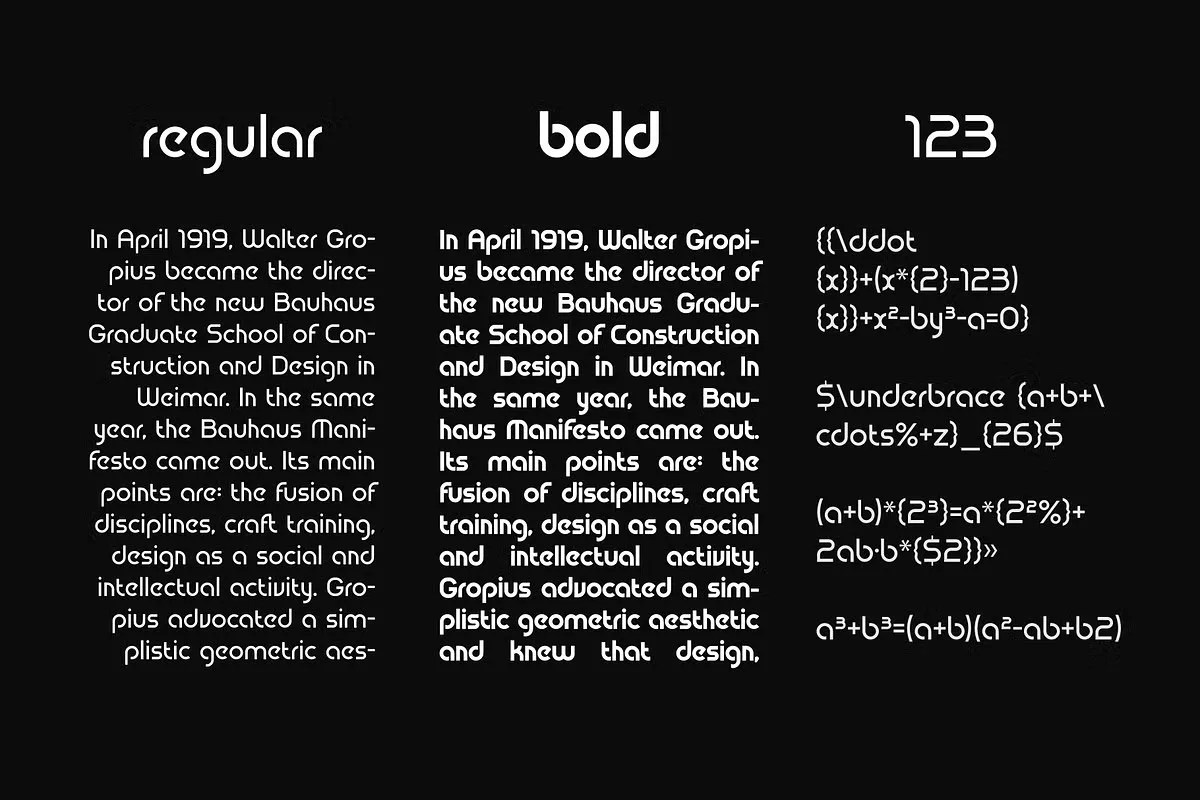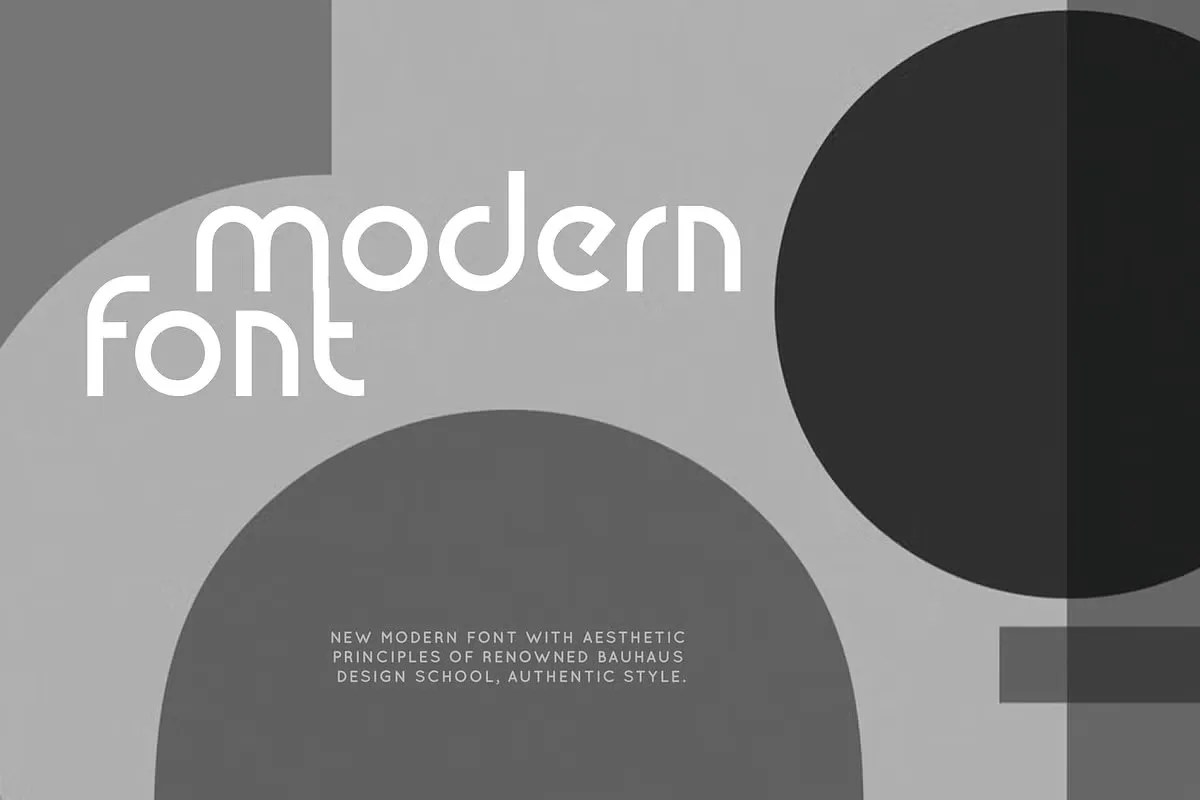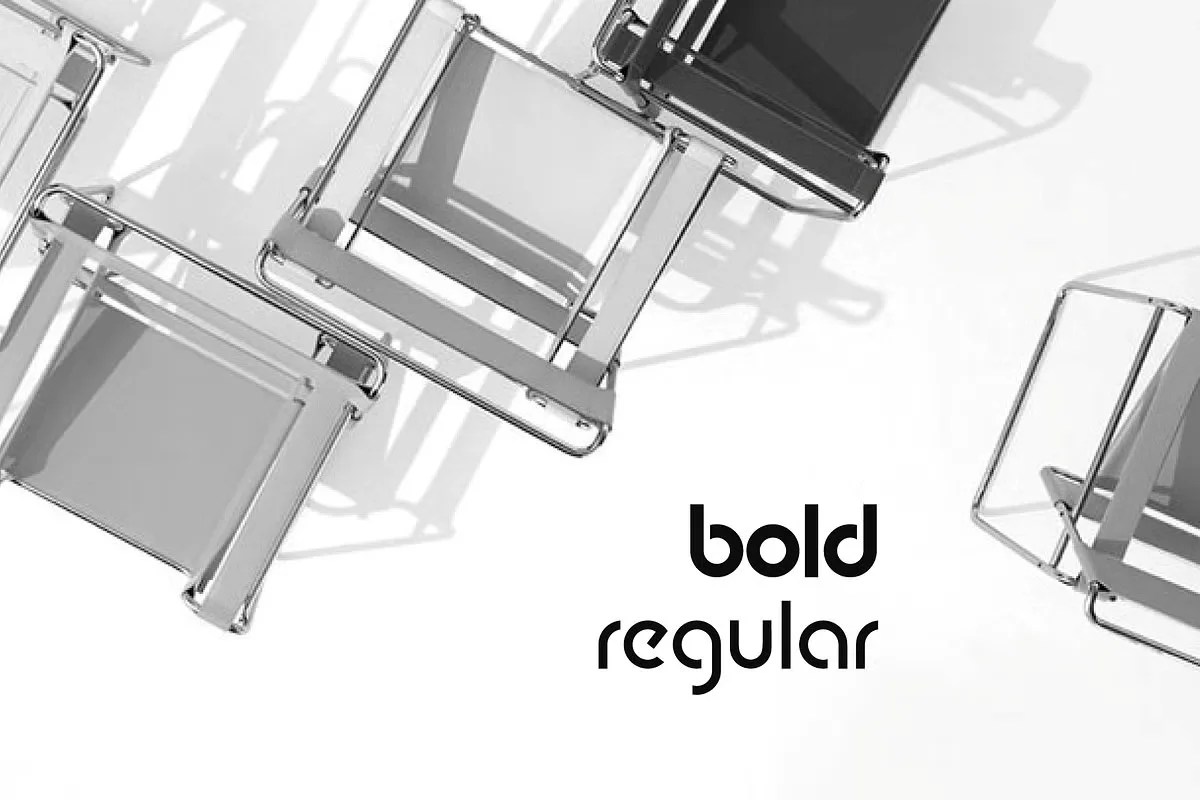
Alro by Artyway is a modern sans serif font with a clean and versatile design. Its geometric structure and balanced proportions make it perfect for projects that demand a professional and contemporary look.
Ideal for logos, branding, websites, packaging, posters, and editorial layouts, Alro delivers clarity and sophistication across both print and digital formats.
• Contemporary sans serif with geometric style
• Clean, minimal, and professional look
• Excellent readability in text and headlines
• Great for branding and corporate identity
• Suitable for digital and print projects
• Timeless and versatile design
• Balanced spacing for polished layouts